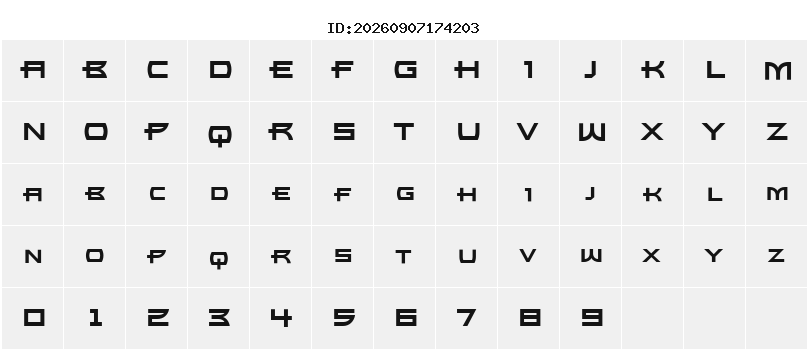
UltraBronzo-Bold Preview
About UltraBronzo-Bold.ttf
UltraBronzo-Bold.ttf is a modern, elegant sans-serif font designed for ultimate readability and visual harmony. Perfect for branding, headlines, web design, and print materials.